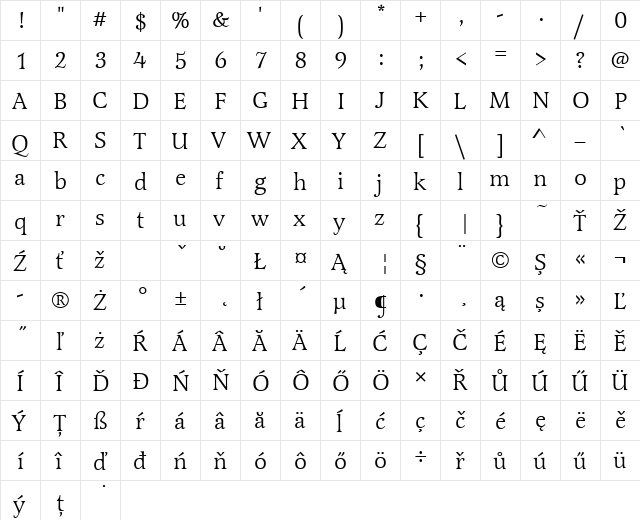
LatienneTEE Regular
Design Context for LatienneTEE Typeface
LatienneTEE is a composed and adaptable typeface that performs quietly and consistently across a wide range of design contexts.